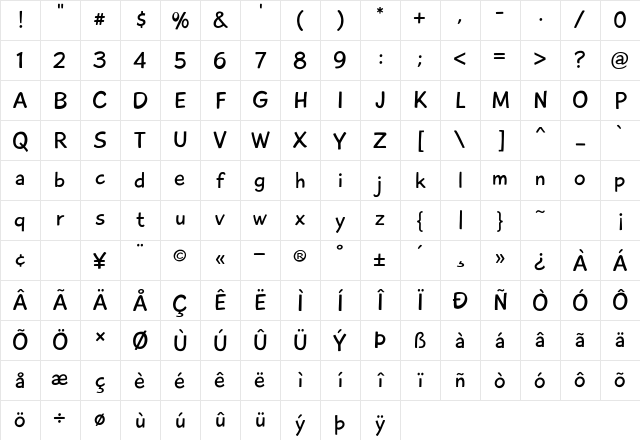
Playtime With Hot Toddies Regular
Foundry: Fontype Freebies
Design Context for Playtime With Hot Toddies
Playtime With Hot Toddies is a composed and adaptable typeface that performs quietly and consistently across a wide range of design contexts.